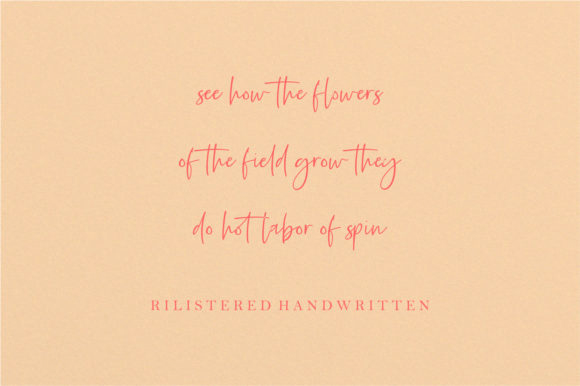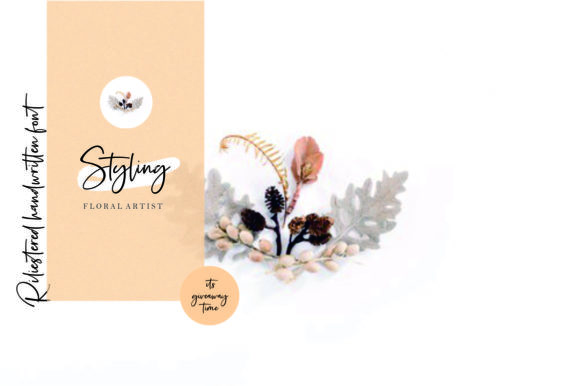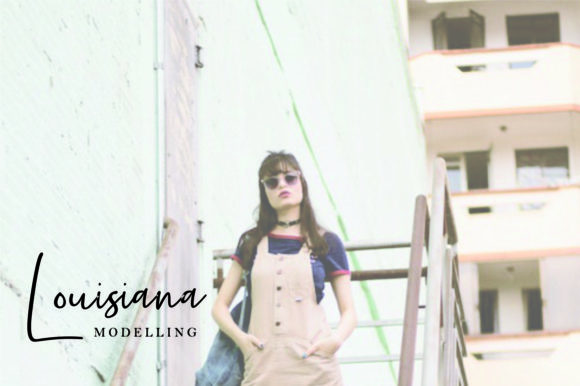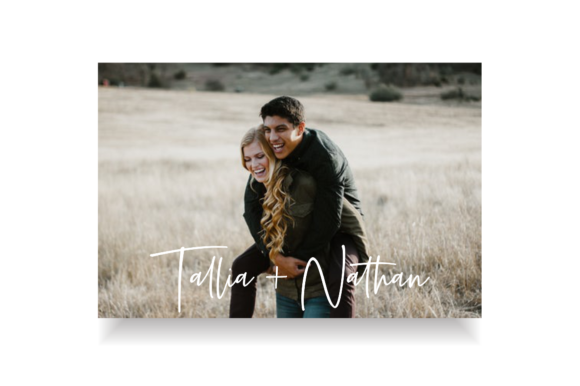
Rilistered Font
About Rilistered Font
Rilistered is a beautiful handwritten font with an authentic twist. It will effortlessly add a contemporary feel to any design project!